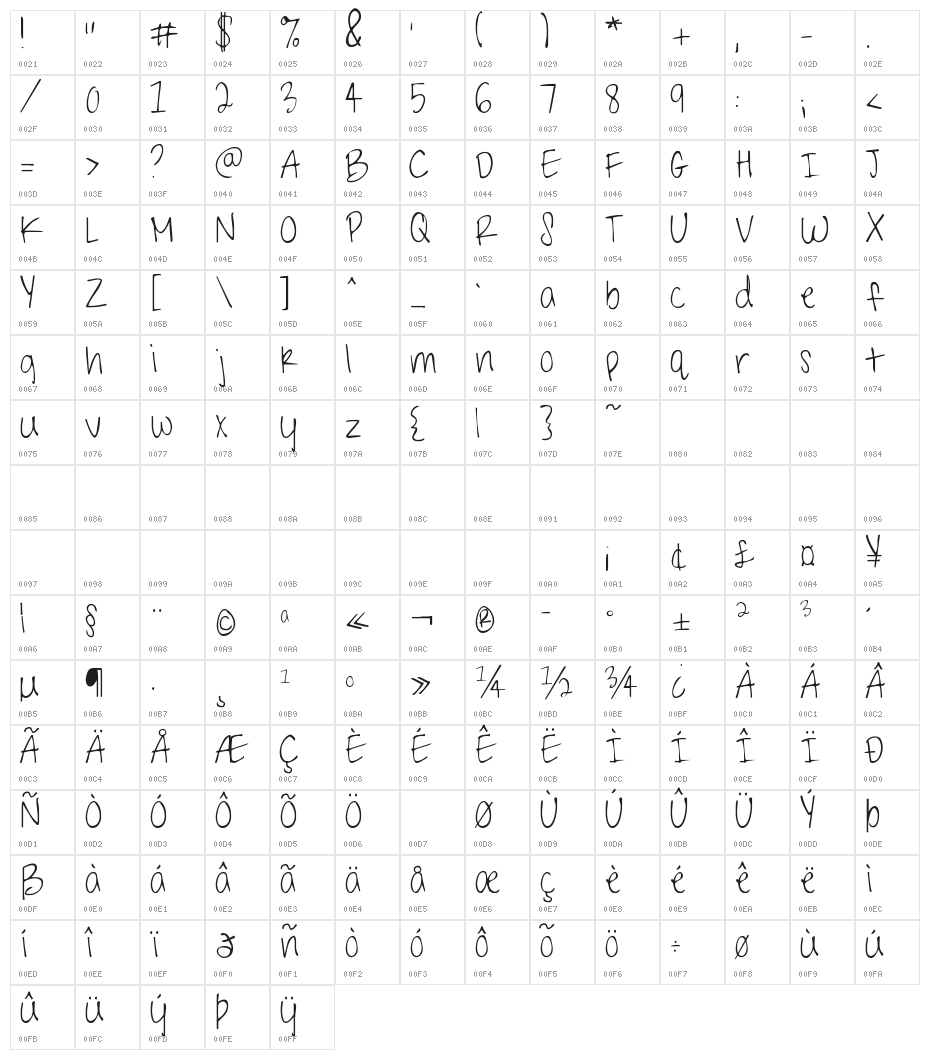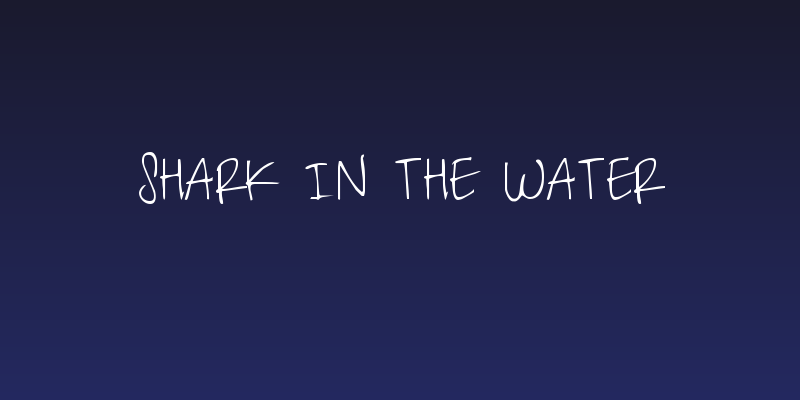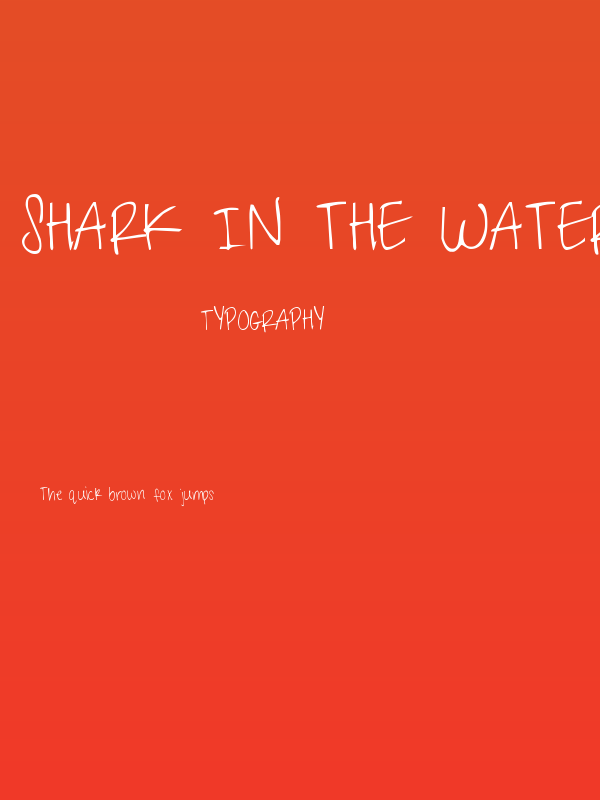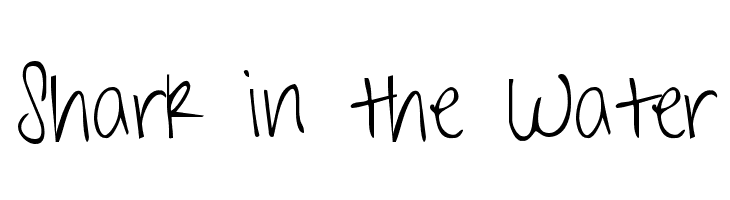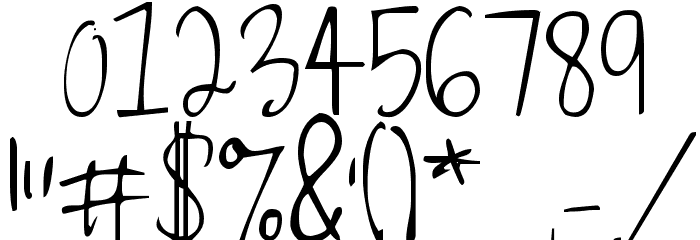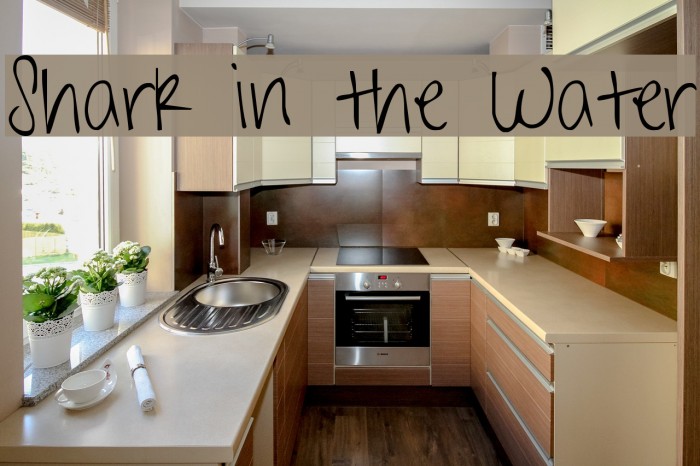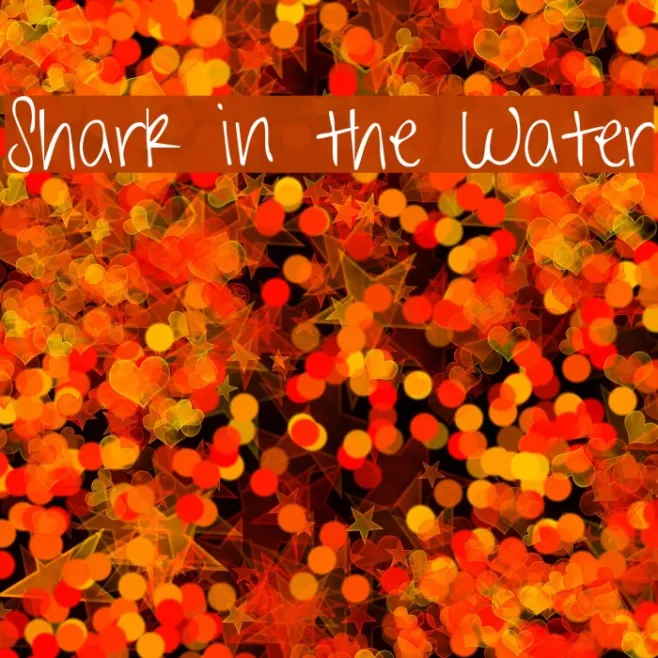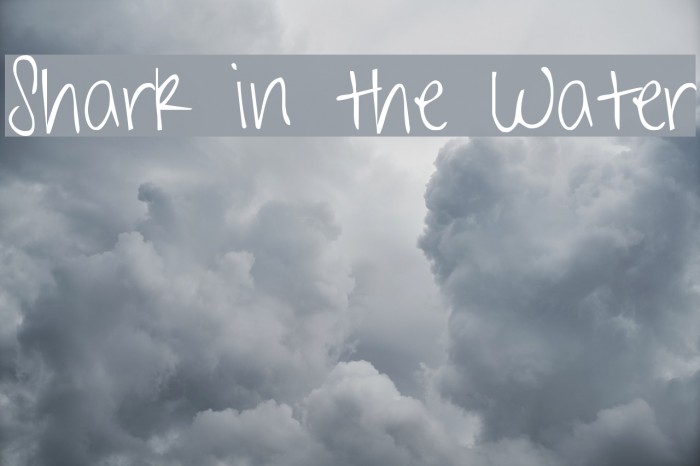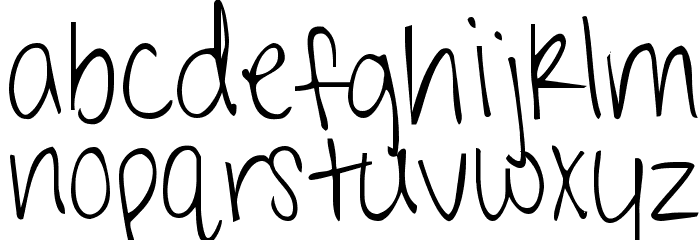
Shark in the Water Font
Shark in the Water Description
This font features a playful and casual handwritten style, characterized by its loose and flowing letterforms. The uppercase and lowercase letters maintain a consistent rhythm, with slightly exaggerated curves and a natural, organic feel. The numerals and special characters complement the alphabet with a similar whimsical touch. The strokes are moderately thick, providing a balanced contrast that enhances readability while retaining a friendly and approachable aesthetic. This font's informal nature makes it ideal for projects that require a personal or creative touch.
| Overall Style | Casual |
| Use Case | Headlines, Informal text, Creative projects |
| Proposed Projects | Ideal for greeting cards, children's books, personal branding, and creative social media graphics. |